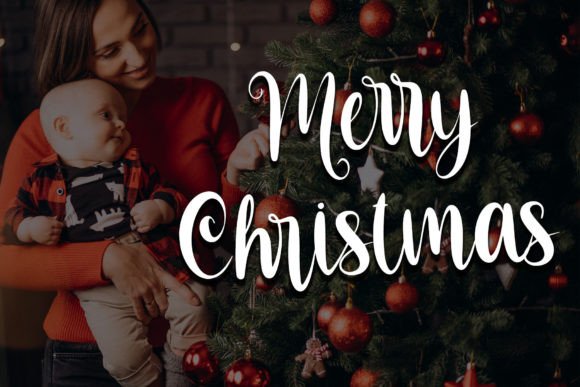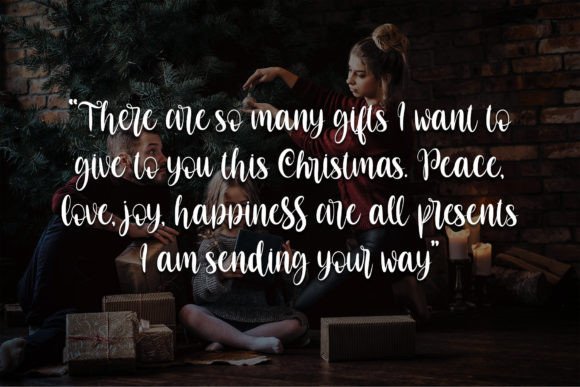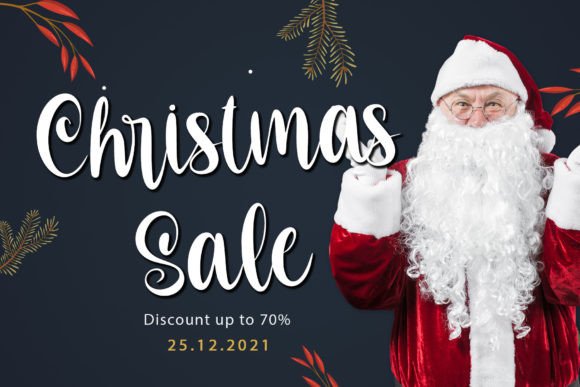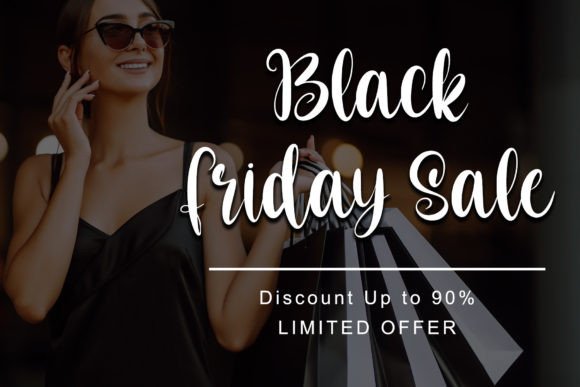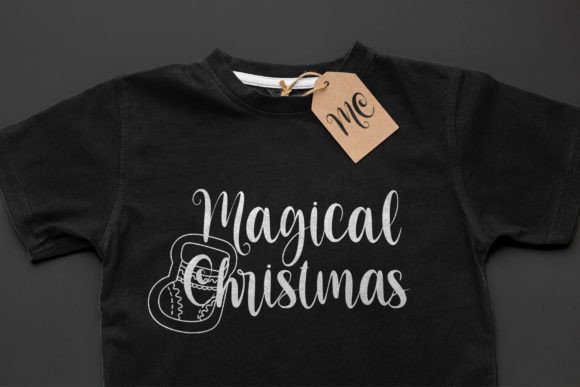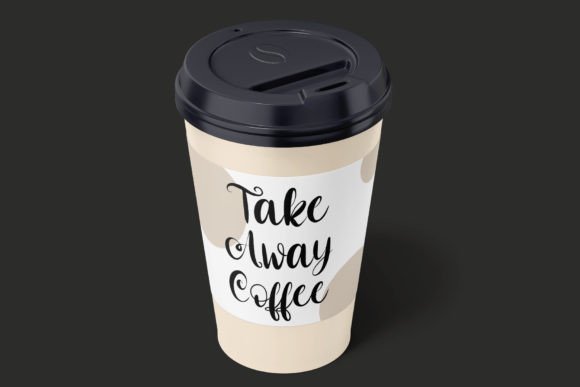
Introduction to Christmas Script Font
Christmas Script is a charming and festive handwritten font.
It looks stunning on wedding invitations, thank you cards, quotes, Christmas greeting cards, logos, business cards, and every other design which needs a lovely touch It is also PUA encoded which means you can access all of the glyphs and ligatures with ease.
Key Features of Christmas Script Font
Christmas Script Font offers exceptional quality and versatility, making it a valuable addition to your design toolkit. Whether you’re creating for personal projects or commercial use, Christmas Script Font delivers professional results.